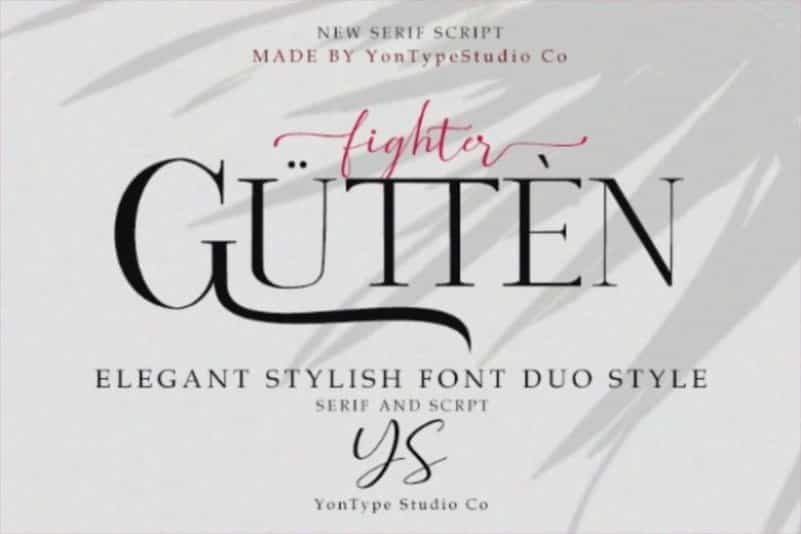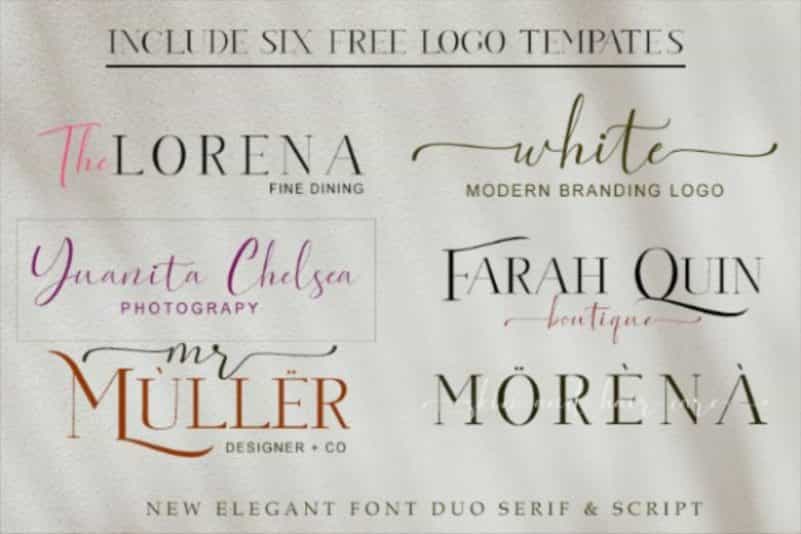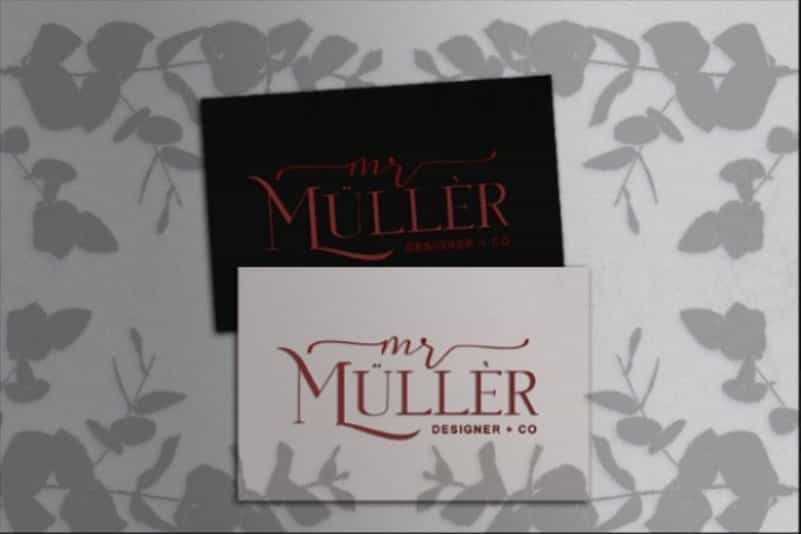
Gutten Fighter is a beautiful font that comes in a package of two which are elegance and authenticity. That is why it is possible to fall in love with its undeniable charm.